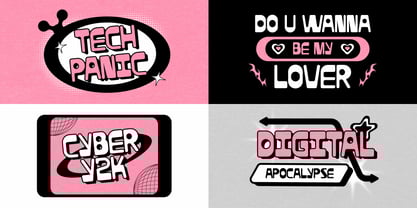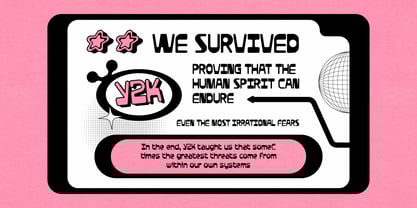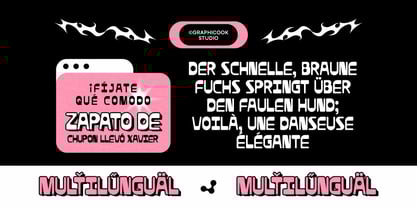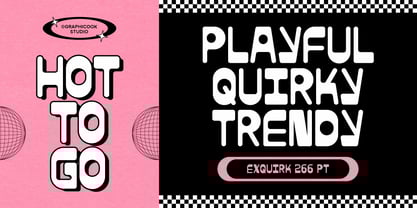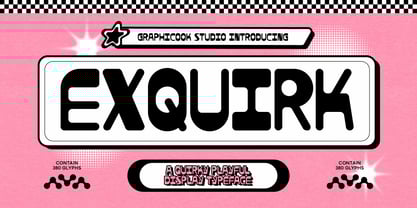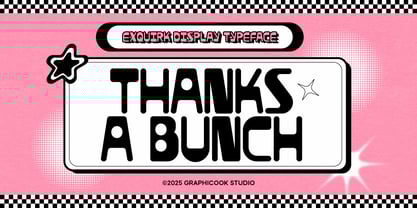
Cook Exquirk
by Graphicook Studio
The Cook Exquirk Font Family was designed by Gumilar Febriansyah and published by Graphicook Studio. Cook Exquirk contains 1 styles. More about this family
Exquirk is a playful, quirky font with Y2K vibes. Its mix of rounded and reversed makes it ideal for posters, magazines, and social media. It is perfect for headlines, logotypes, magazines, packaging, quotes, movies, games, cover albums, book covers, and flyers, it's a perfect solution for creating eye-catching designs that stand out in any context.
Designers: Gumilar Febriansyah
Foundry: Graphicook Studio